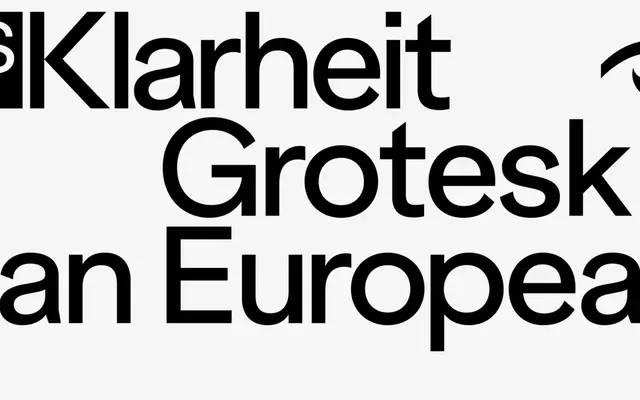
ES Klarheit Grotesk Paneuro
ES Klarheit Grotesk Paneuro specimen from Extraset
A geometric grotesque by Alex Dujet that draws on Bauhaus construction and 1960s Swiss modernism, with 13 OpenType stylistic sets offering movement between neutral and assertive letter forms across Latin, Cyrillic and Greek.
Developed over five years, the typeface positions itself between two historical models: the geometric rigour of the Bauhaus and the typographic conventions of Swiss modernism in the 1960s. Thirteen stylistic sets cover alternates for forms including an angular-cut G, schoolbook characters, kurrent K and sweeping y, allowing the same weight to read as restrained or expressive depending on the combination selected. Language coverage is extensive, spanning Vietnamese and Pinyin alongside Cyrillic scripts for Belarusian, Ukrainian, Kazakh and Mongolian among others, and full Greek.
The typeface blends Bauhaus geometric construction with 1960s Swiss modernist conventions, placing it squarely in the geometric grotesque tradition with a distinctly pan-European character.